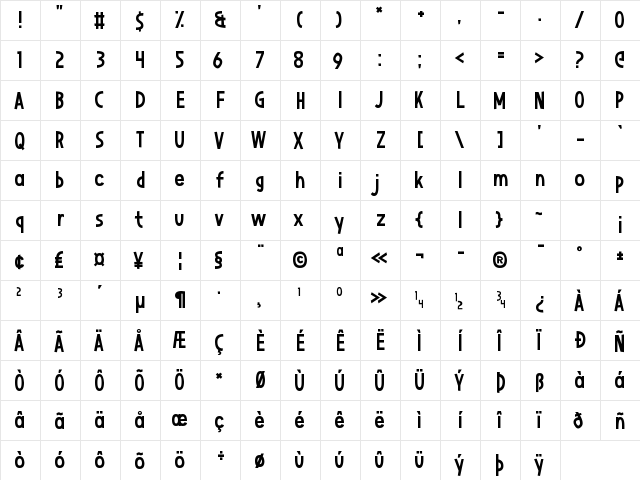
Niagaraphobia Regular
Design Context for Niagaraphobia Typeface
Niagaraphobia is a composed and adaptable typeface that performs quietly and consistently across a wide range of design contexts.